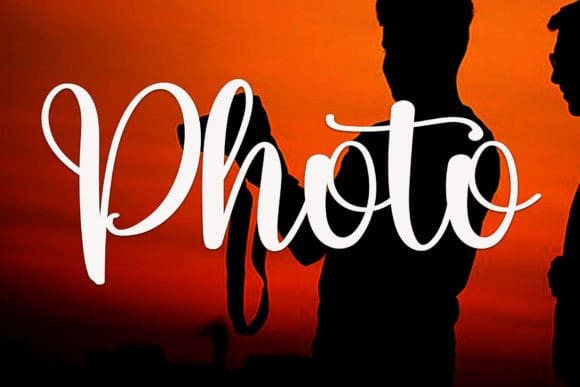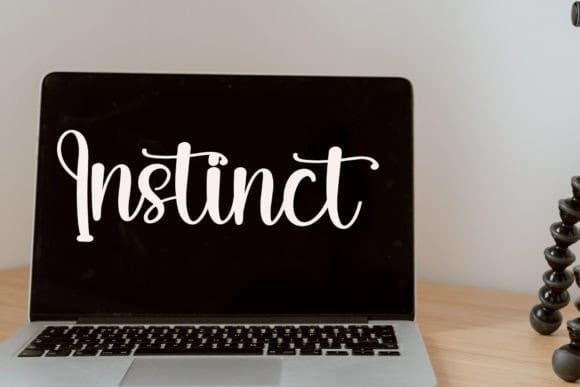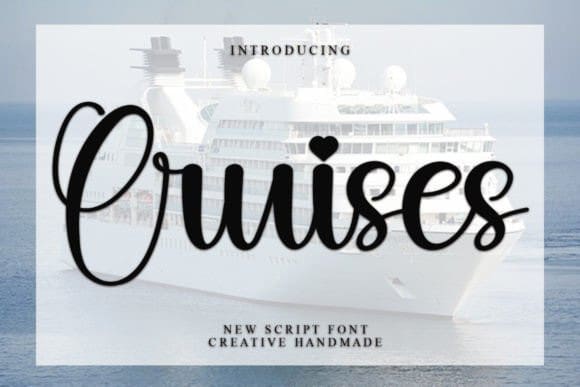
Cruises Script Font
Cruises Script Font is a gorgeous and bold handwritten font. It reads as confident and dynamic and can add tons of nostalgic character to your designs.